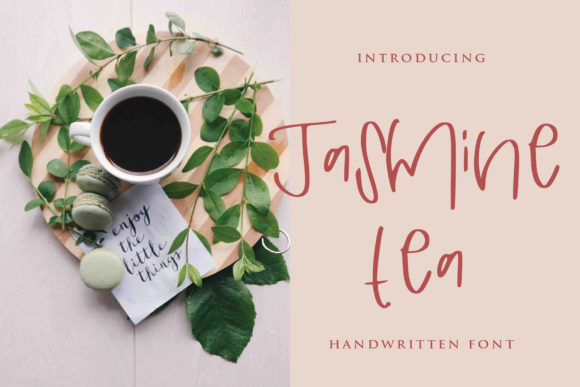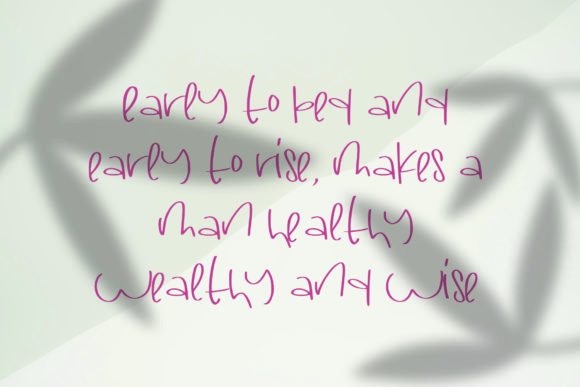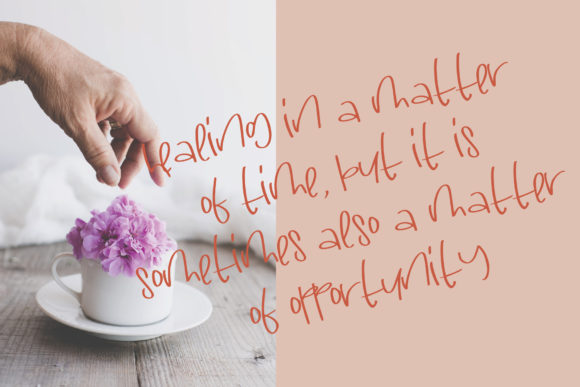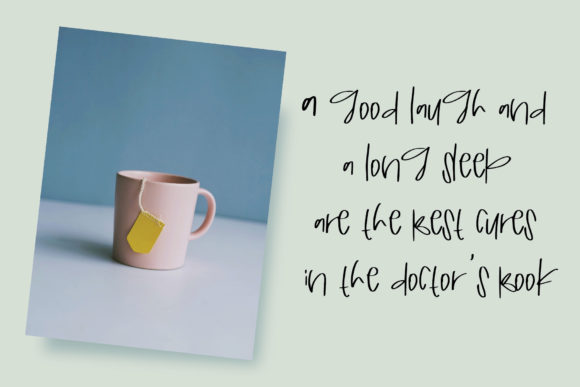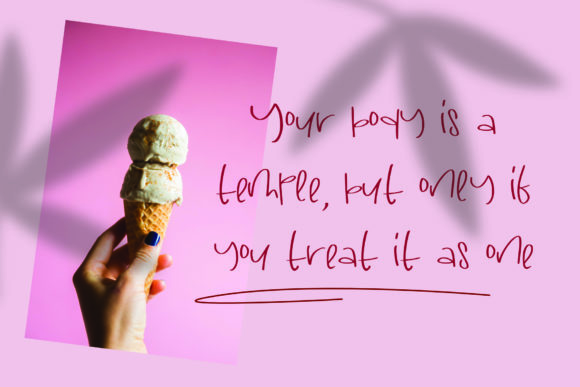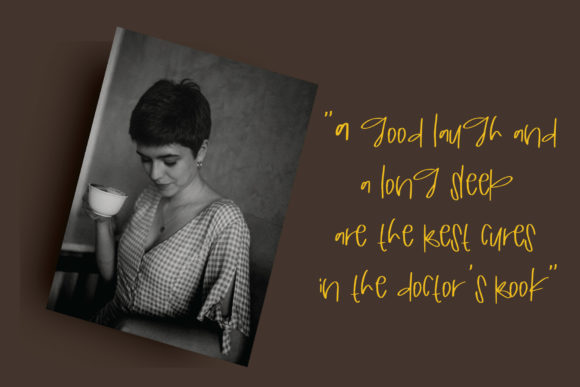
Jasmine Tea Font
About Jasmine Tea Font
Jasmine Tea is a relaxed and clean handwritten font. Masterfully designed to become a true favorite, this font has the potential to bring each of your creative ideas to the highest level!